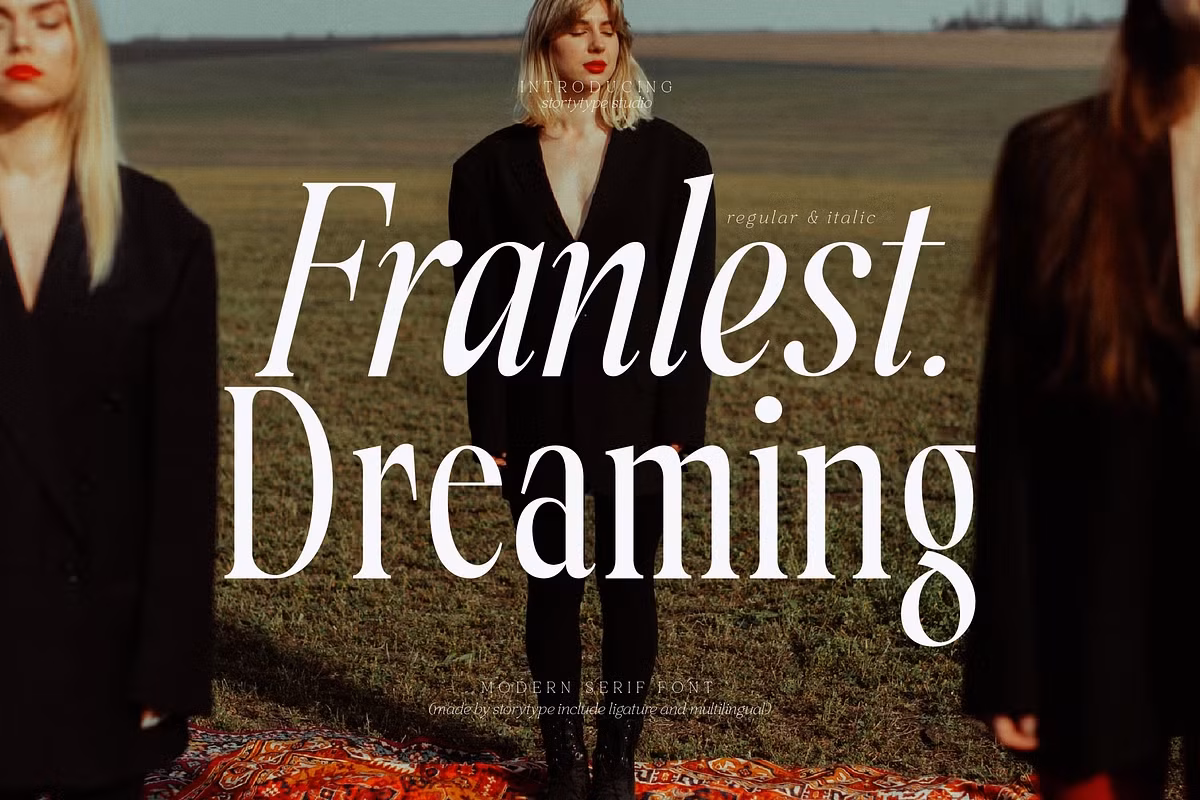
Franlest Dreaming Modern Serif Font Free Download
Please note, you must purchase this font for commercial use. However, you can easily download Franlest Dreaming Modern Serif Font Free Download for personal use and testing purposes. Franlest Dreaming Modern Serif Font is an elegant and contemporary typeface that blends classic serif details with a modern touch. Perfect for high-end branding, editorial projects, websites, and luxury invitations, this font brings sophistication and style to any design. With its clean lines and refined letterforms, Franlest Dreaming Modern Serif Font Free Download is ideal for projects that demand a professional, polished appearance. Whether you're designing a sleek logo, a stylish magazine spread, or a classy product label, this font adds timeless charm to your work. Download Franlest Dreaming Modern Serif Font Free Download today and explore its full potential before opting for a commercial license.